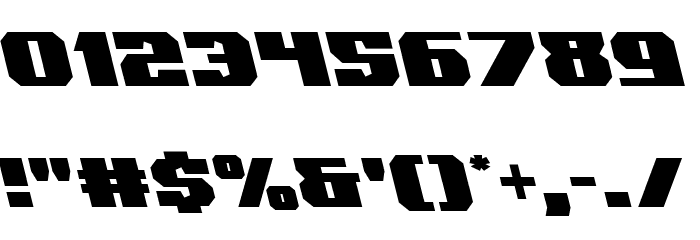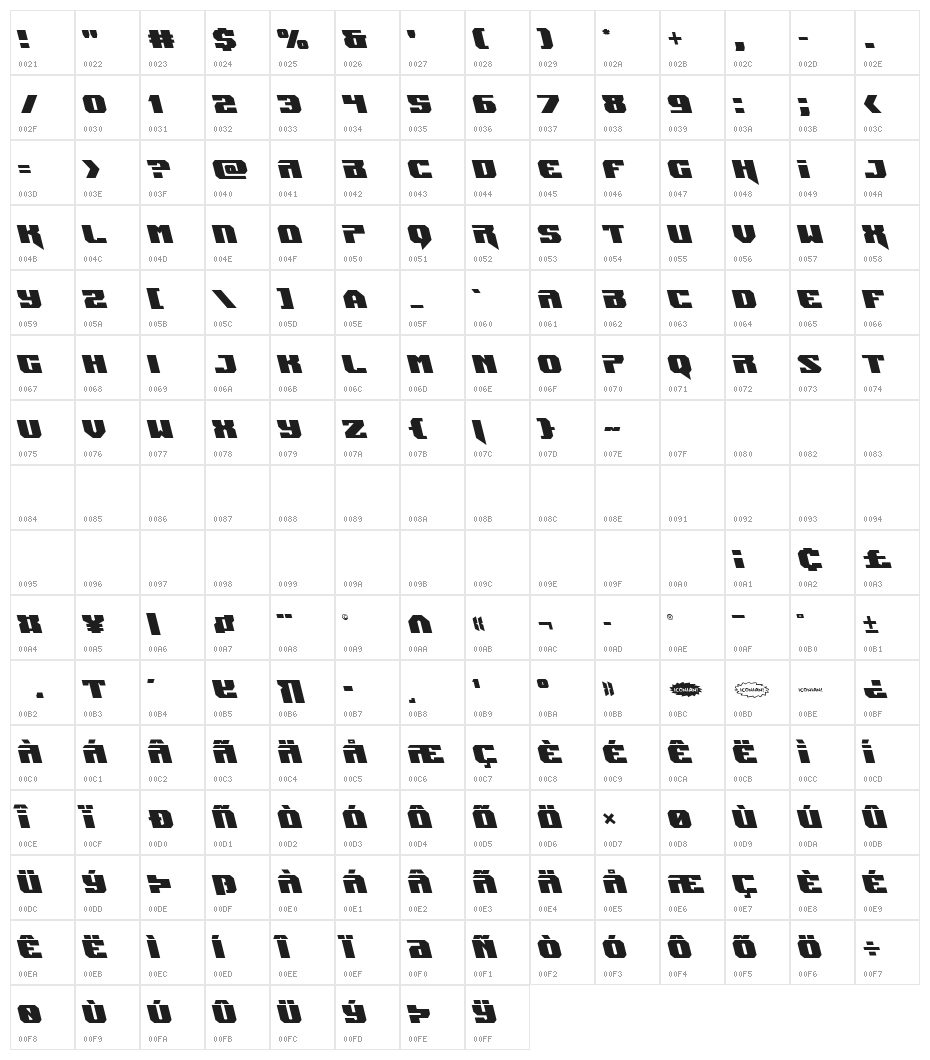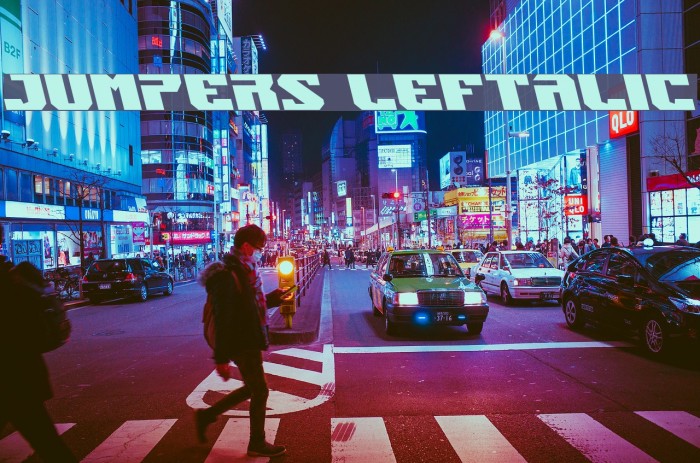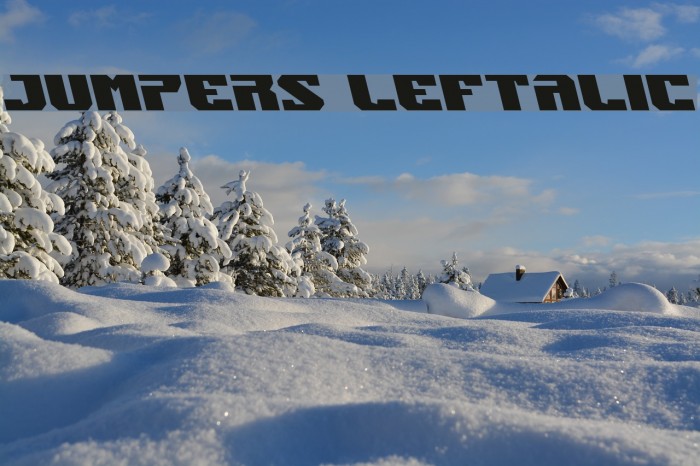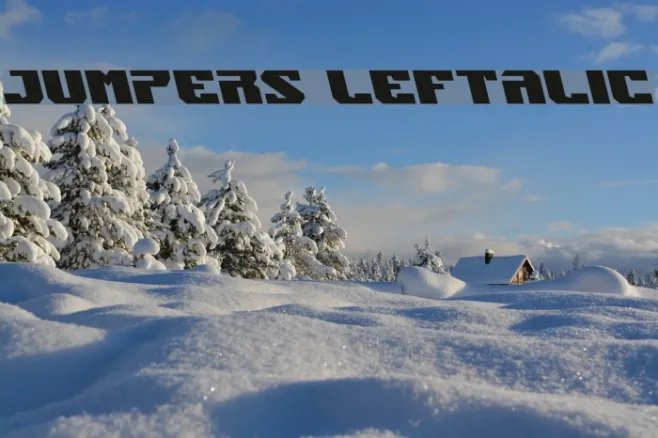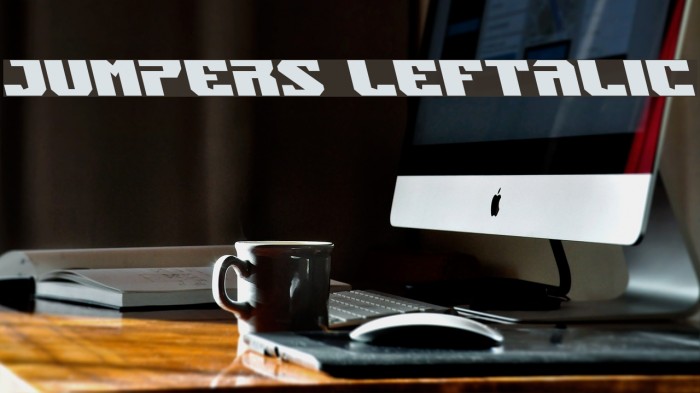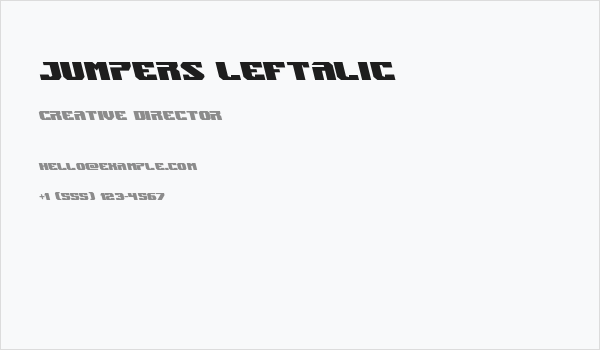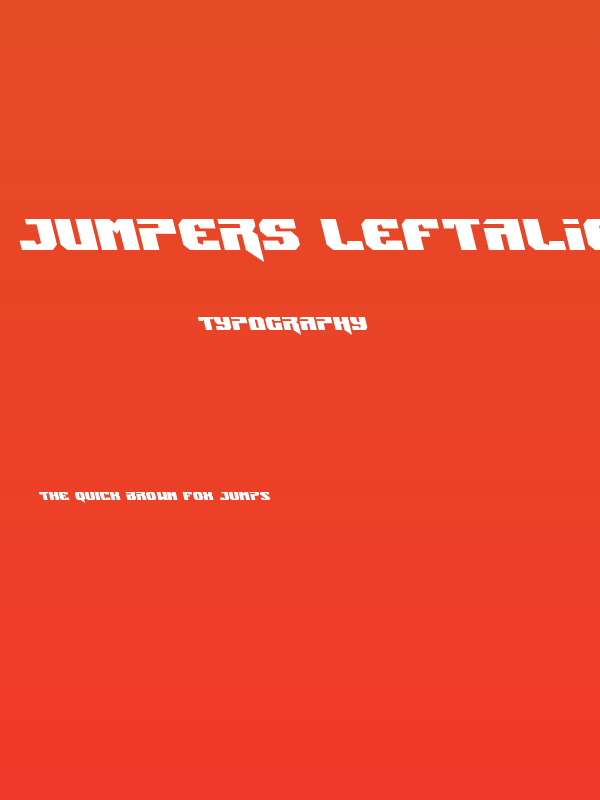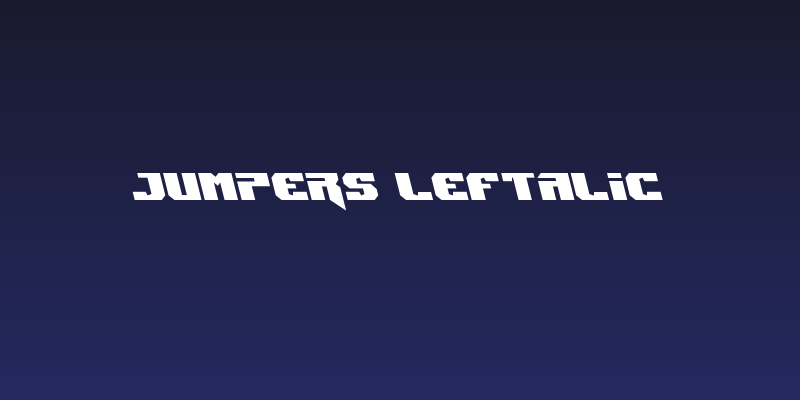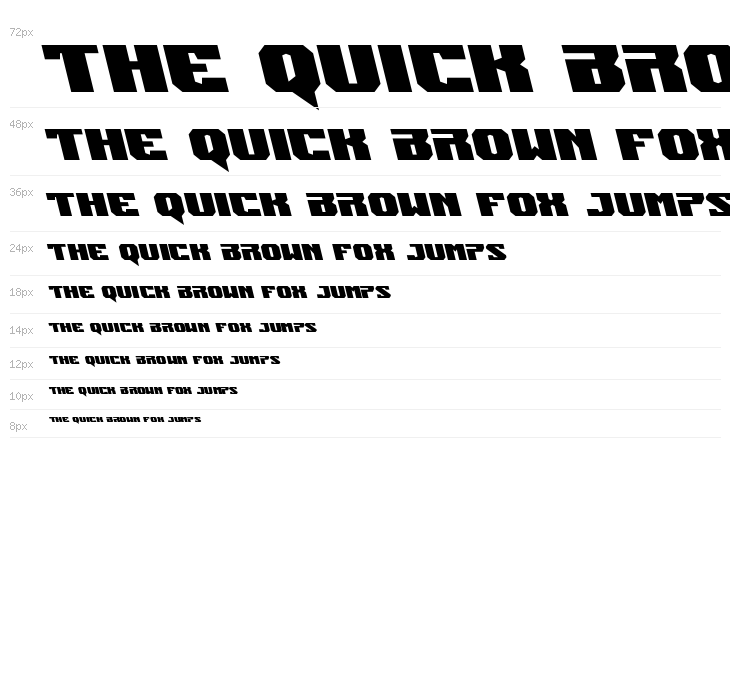
Jumpers Leftalic Font
Jumpers Leftalic Description
This font features a bold and dynamic design with sharp, angular edges and a distinct geometric style. The characters are heavily stylized, with a futuristic and aggressive appearance, making them stand out prominently. The uppercase and lowercase letters share a consistent aesthetic, with the lowercase slightly smaller but maintaining the same boldness. Numbers and special characters are designed to match the overall theme, ensuring a cohesive look. The font's unique style is ideal for projects that require a strong visual impact.
| Overall Style | Futuristic, Aggressive |
| Proposed Projects | Ideal for video game titles, sports branding, posters, and any project needing a strong, impactful visual presence. |